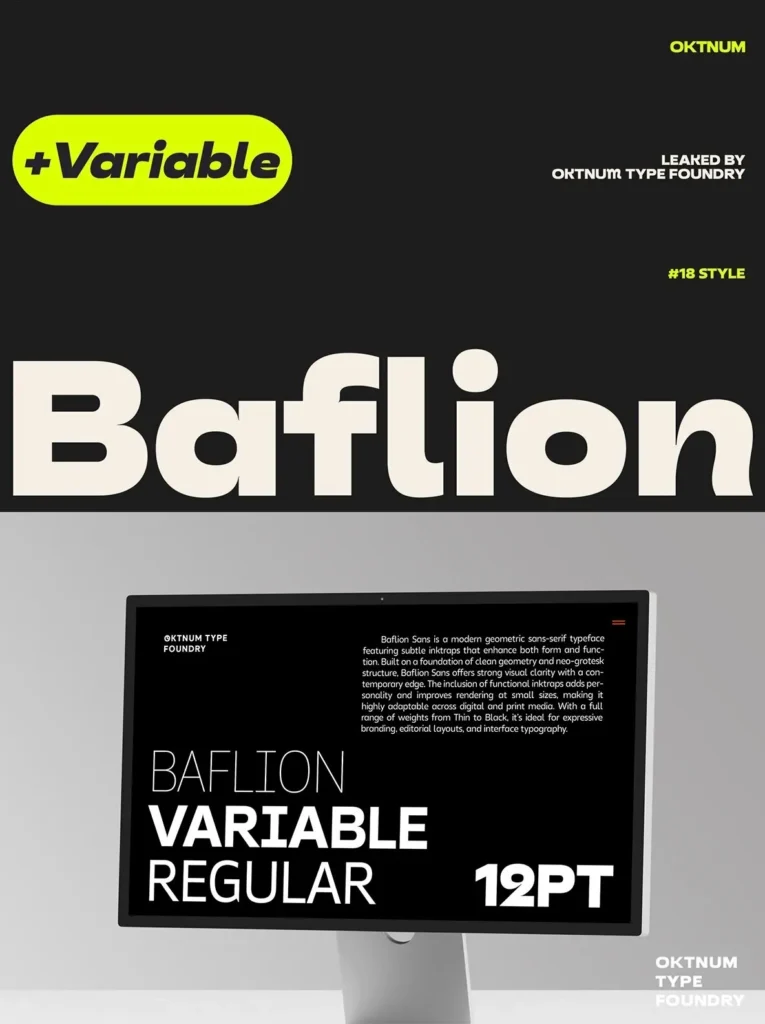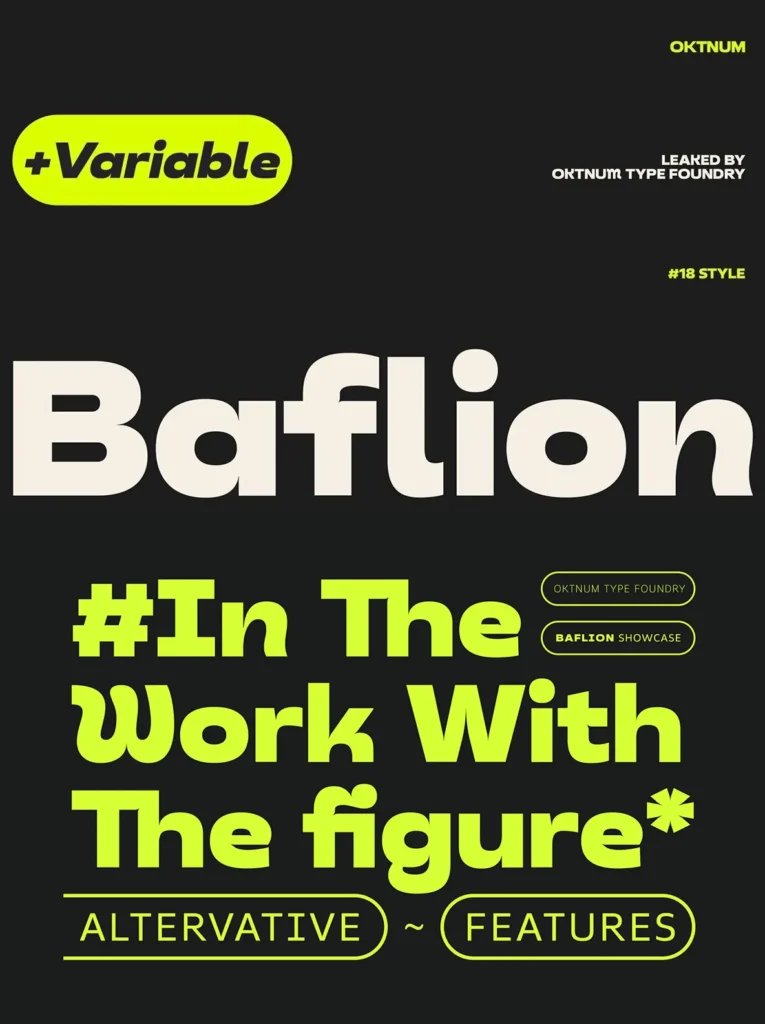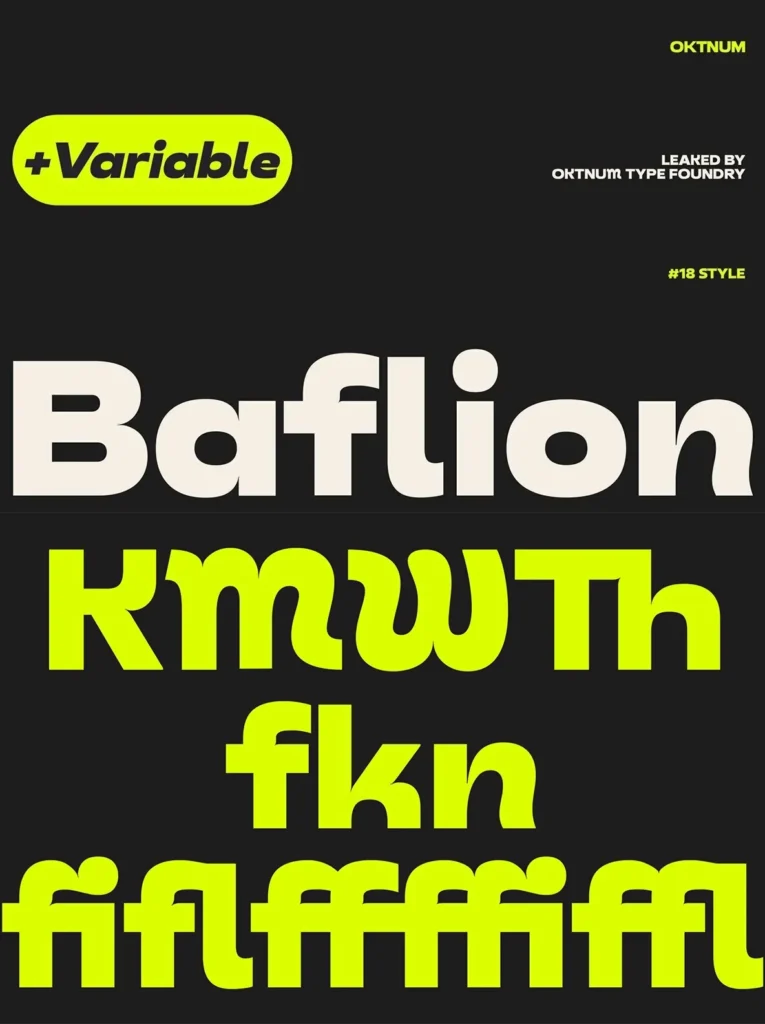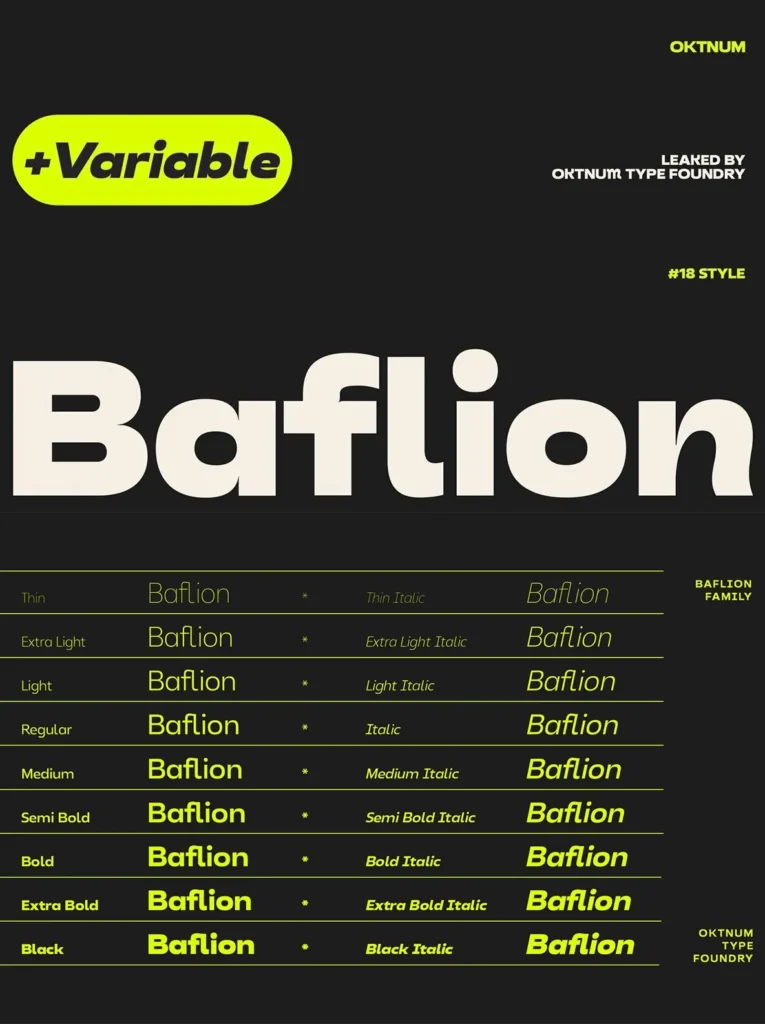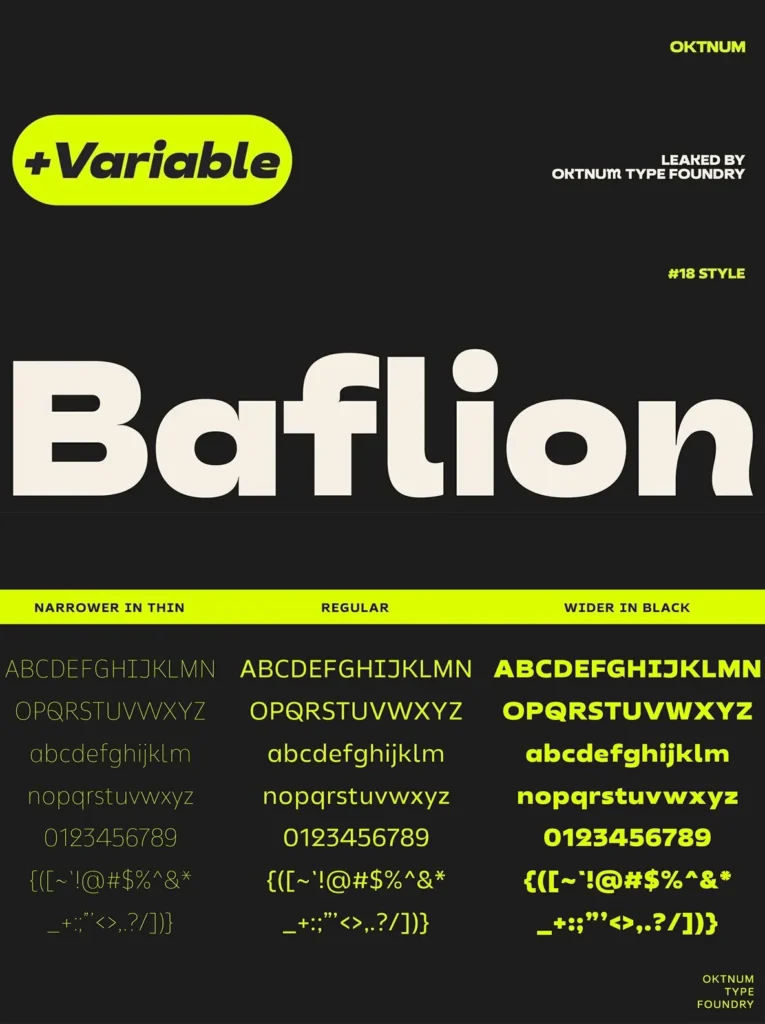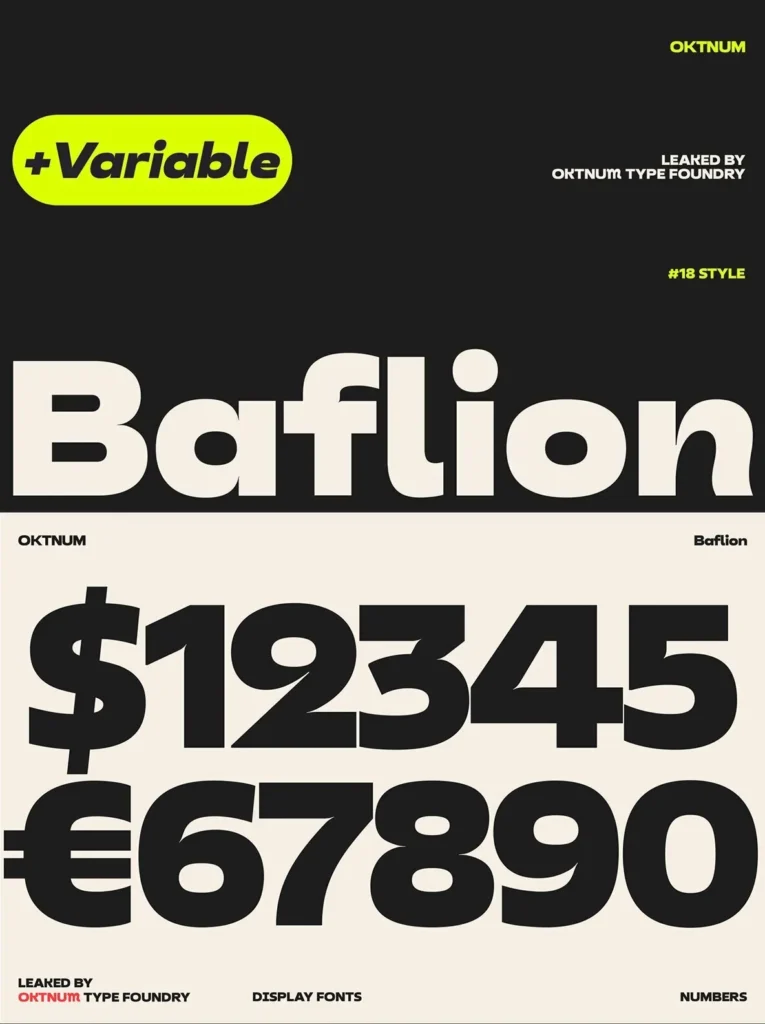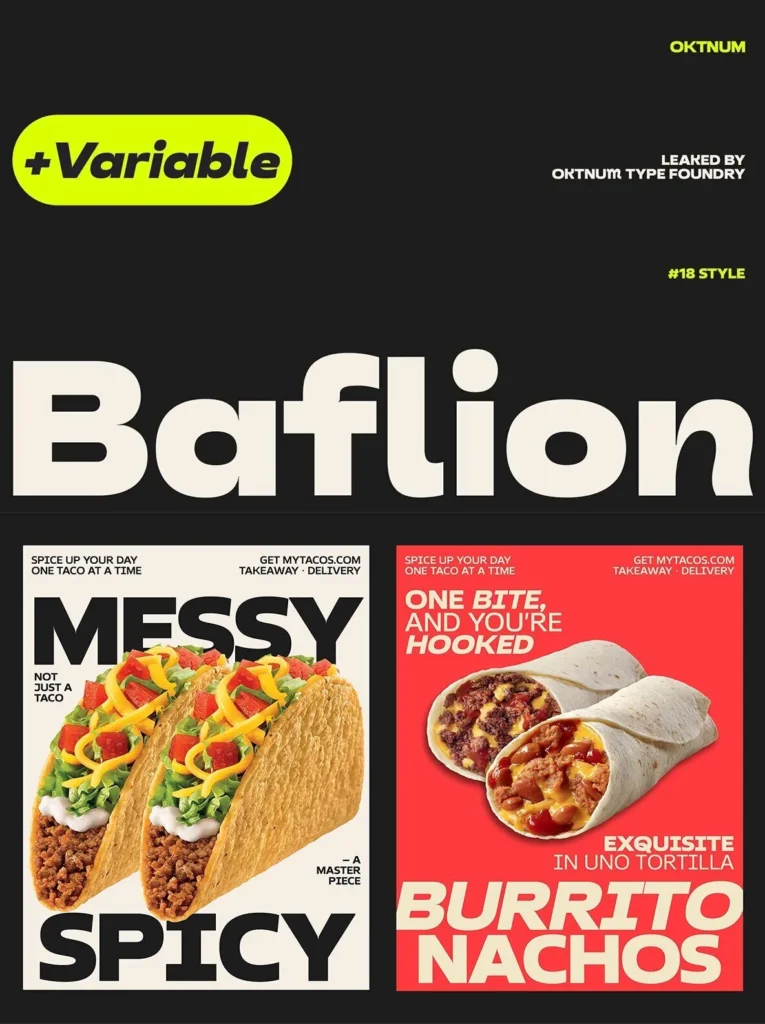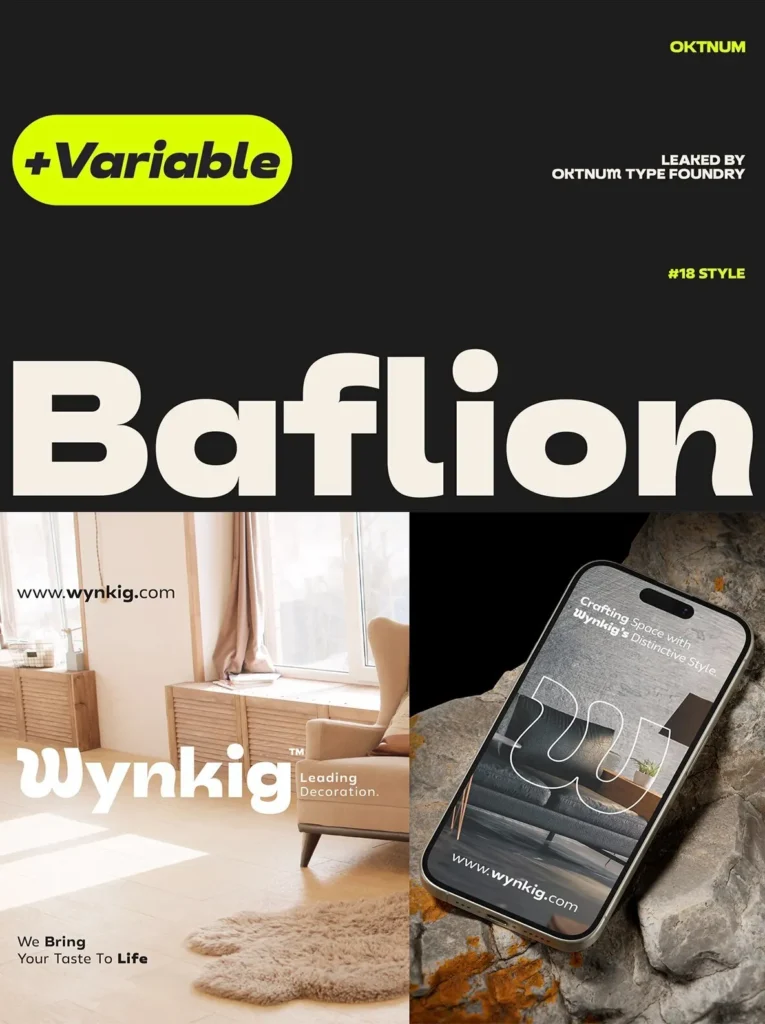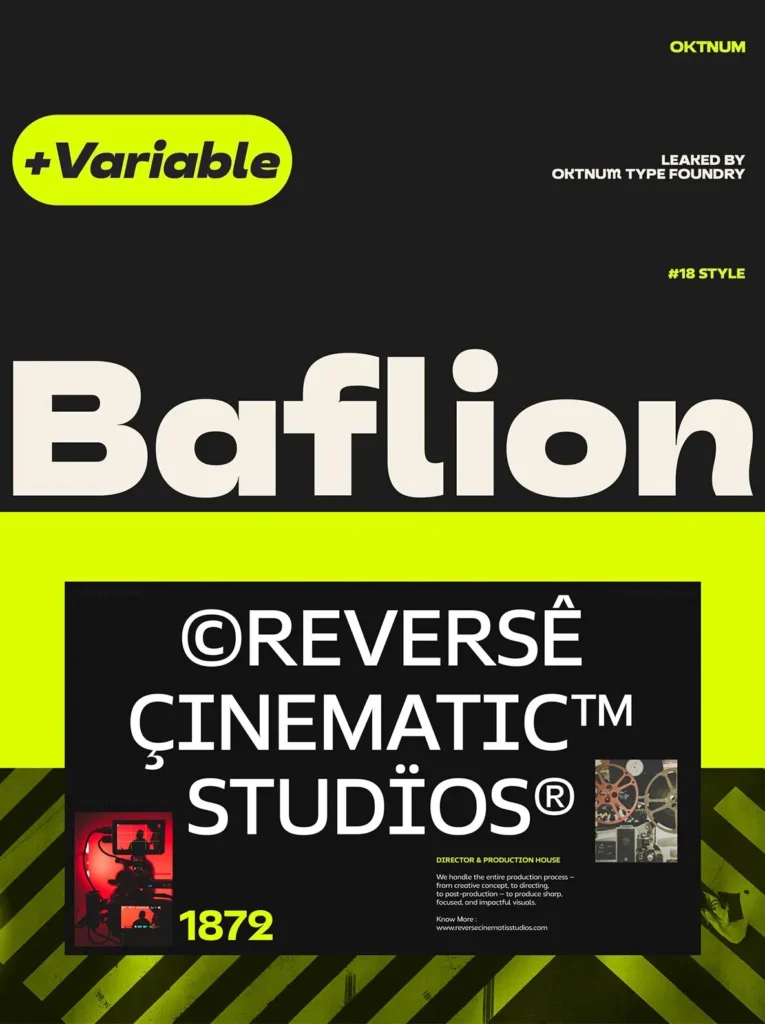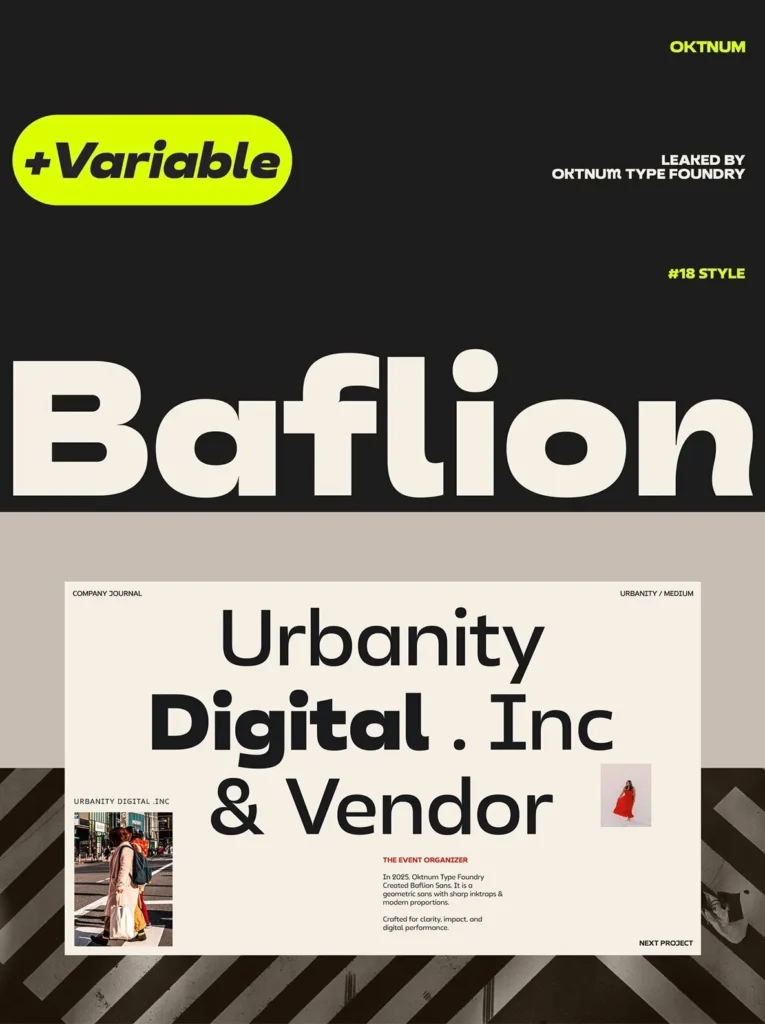
Baflion Sans — Geometry with Warmth
Baflion Sans is a modern sans-serif typeface that blends geometric structure with humanist warmth. Built for a broad range of contemporary design needs, it brings a clean, refined aesthetic to editorial layouts, branding, digital interfaces, and signage.
Each letterform balances sharpness and softness with careful attention to detail. A geometric base gives Baflion Sans clarity and consistency, while subtle ink traps, open counters, and measured curve modulation add rhythm and personality. Moderate contrast and slightly flared terminals give the typeface a distinct voice while preserving legibility.
Baflion Sans supports multilingual Latin scripts and is suited for both print and screen use. Available in weights from Thin to Black, with matching italics, it gives designers a flexible typographic system for expressive headings and readable body copy.